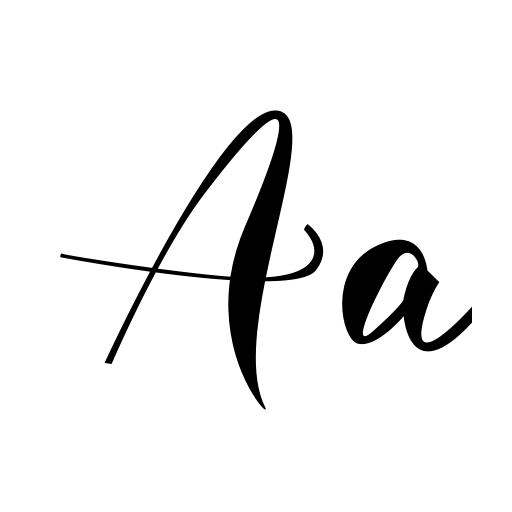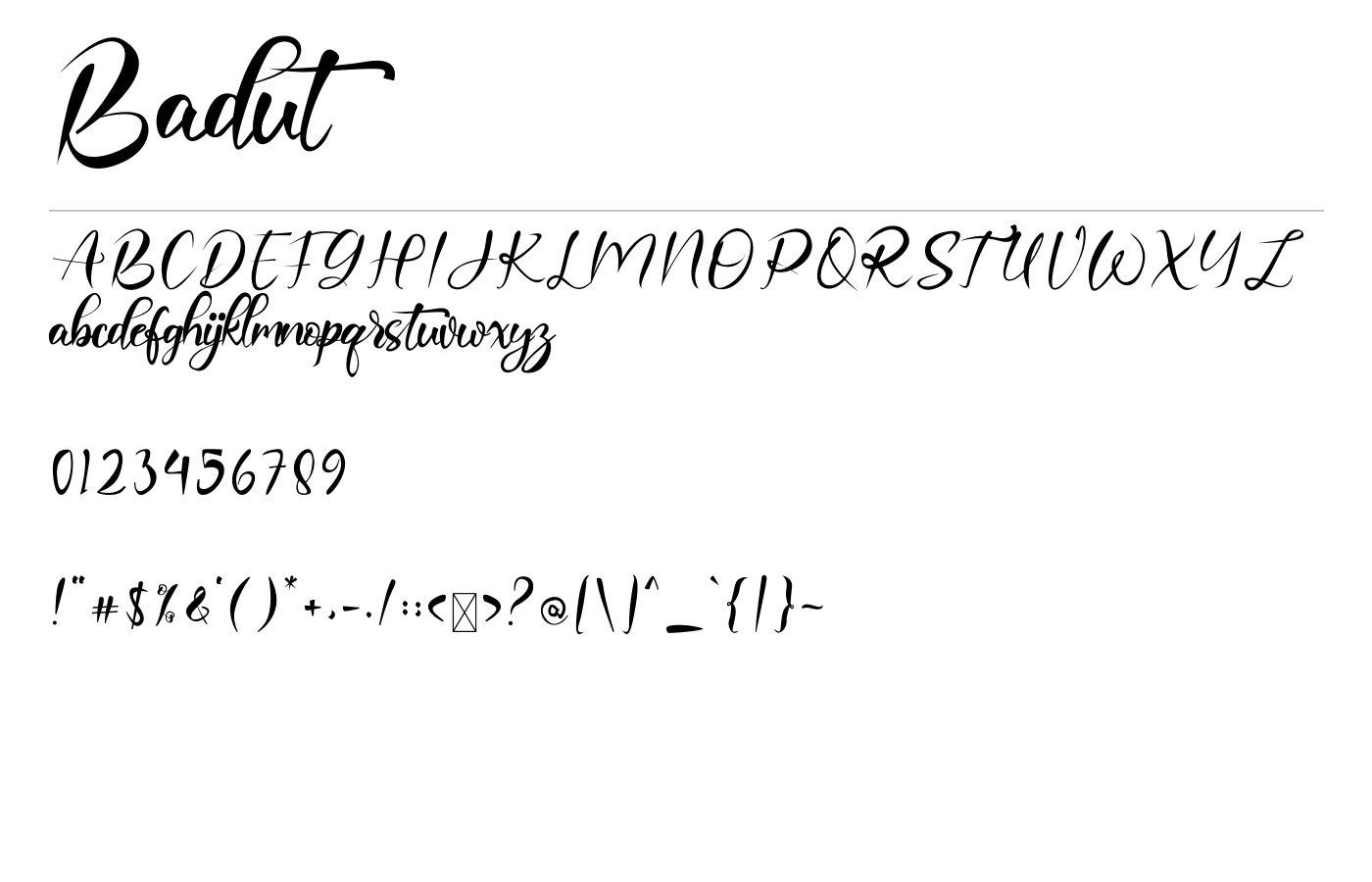
Badut Font is a lively and elegant script typeface characterized by its flowing, calligraphic strokes and expressive curves. Its medium weight and tall, slender letterforms give it a stylish and modern feel, perfect for adding a personal, handcrafted touch to invitations, branding, and creative projects. This font shines in decorative uses where a sophisticated yet approachable look is desired.
Badut Font
About Badut Font